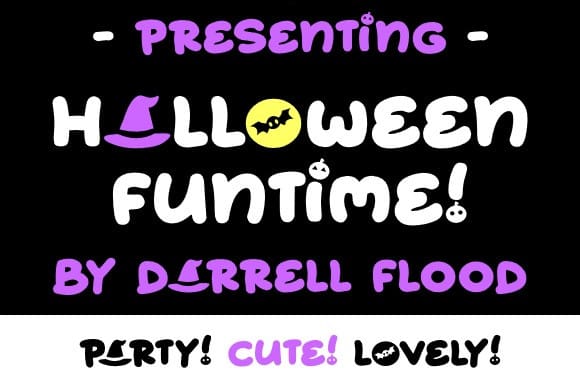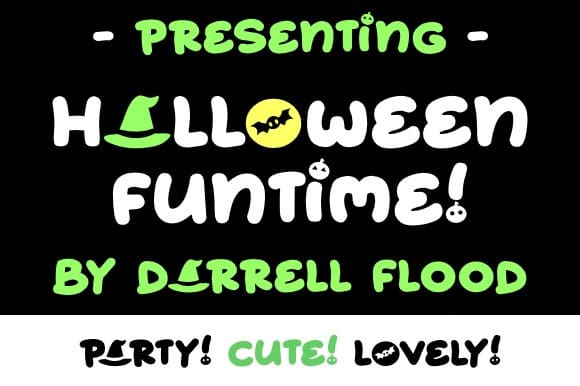
Halloween Funtime Font
Halloween Funtime Font, a super fun and expressive Halloween font in a lovely, hand-drawn style. Includes little illustrative elements like bats, witch hats, and pumpkins in some of the letters. Perfect for Halloween celebrations and general family-friendly horror use!